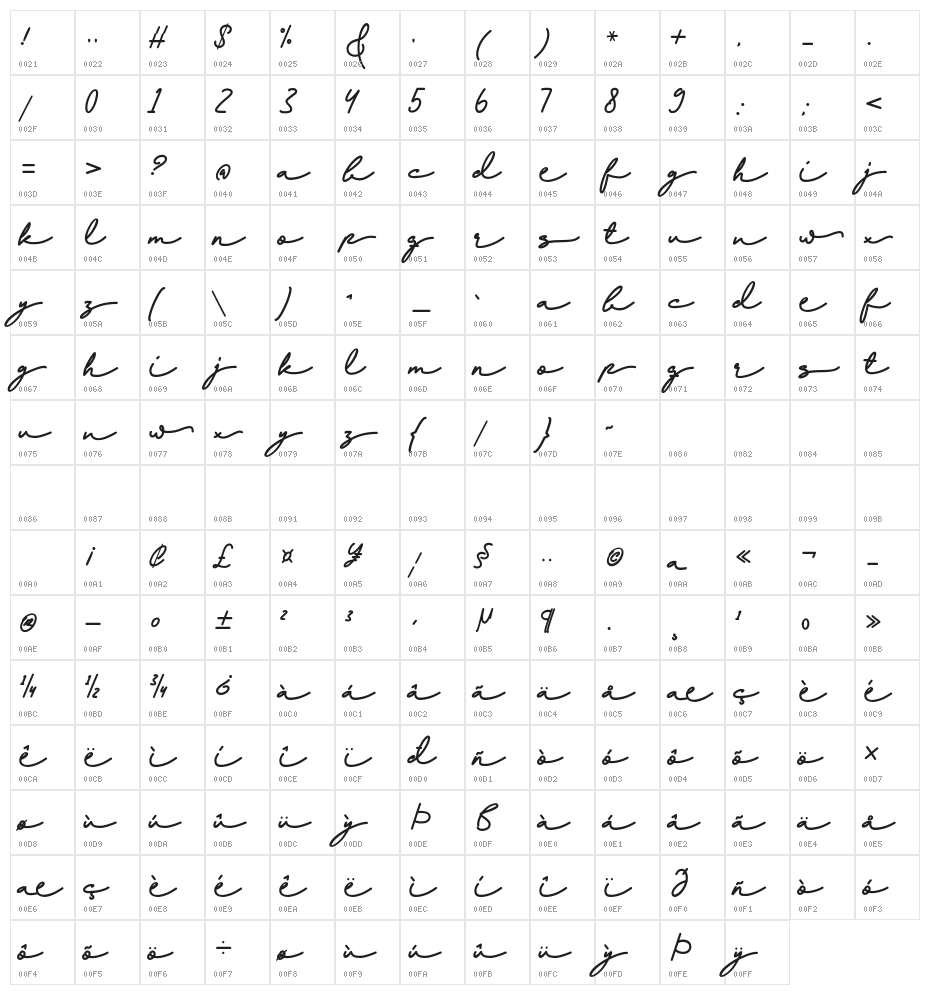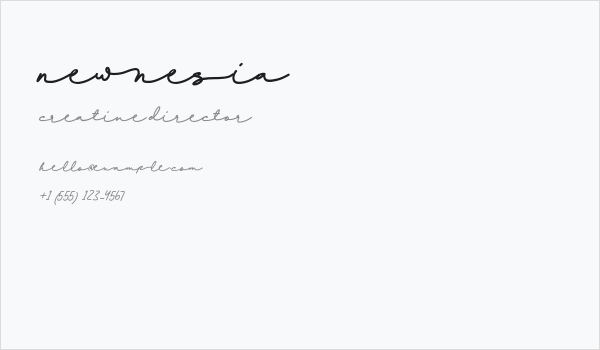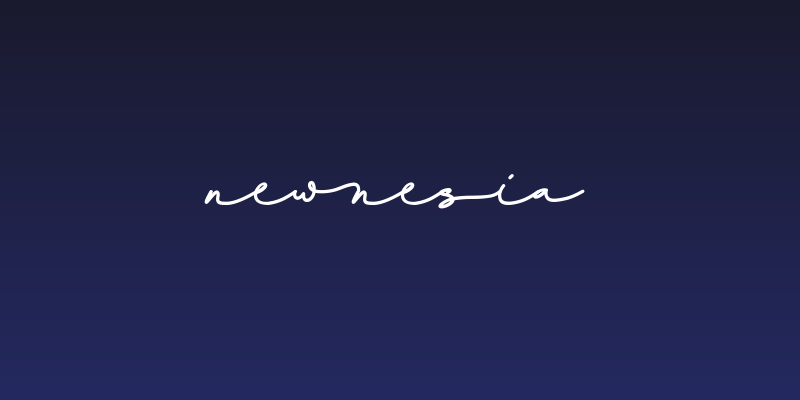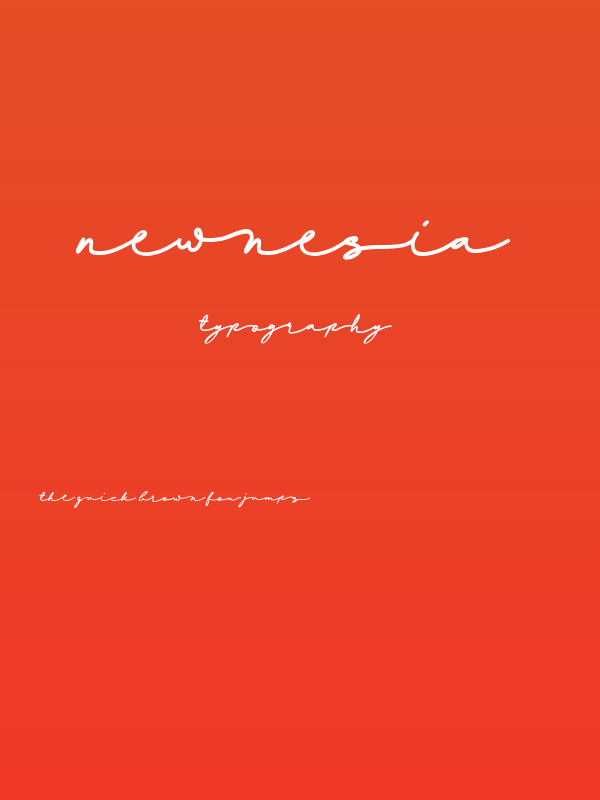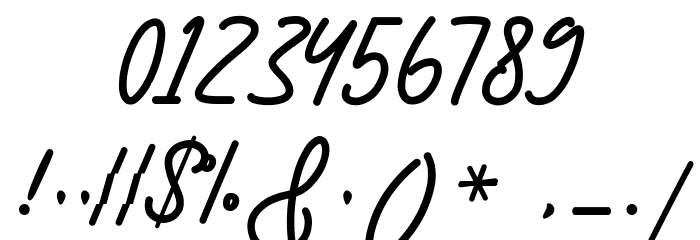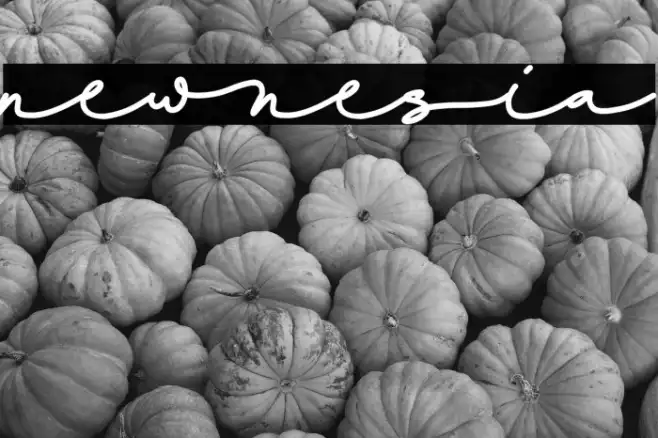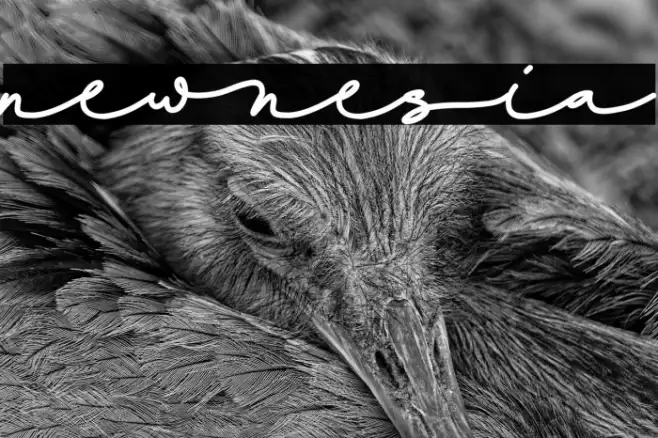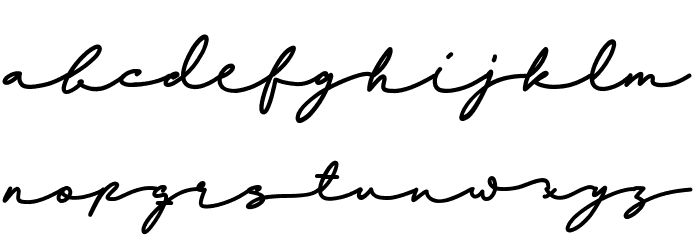
Newnesia Font
Newnesia Description
This font features a flowing, cursive style with smooth, continuous strokes that mimic natural handwriting. The letters are elegantly connected, creating a seamless and fluid appearance. The uppercase and lowercase characters maintain a consistent style, with a slight slant that adds to the handwritten feel. The numerals are bold and clear, complementing the script letters with a more straightforward design. Special characters are integrated seamlessly, maintaining the overall aesthetic. This font exudes a sense of elegance and personal touch, making it suitable for projects that require a personal or artistic flair.